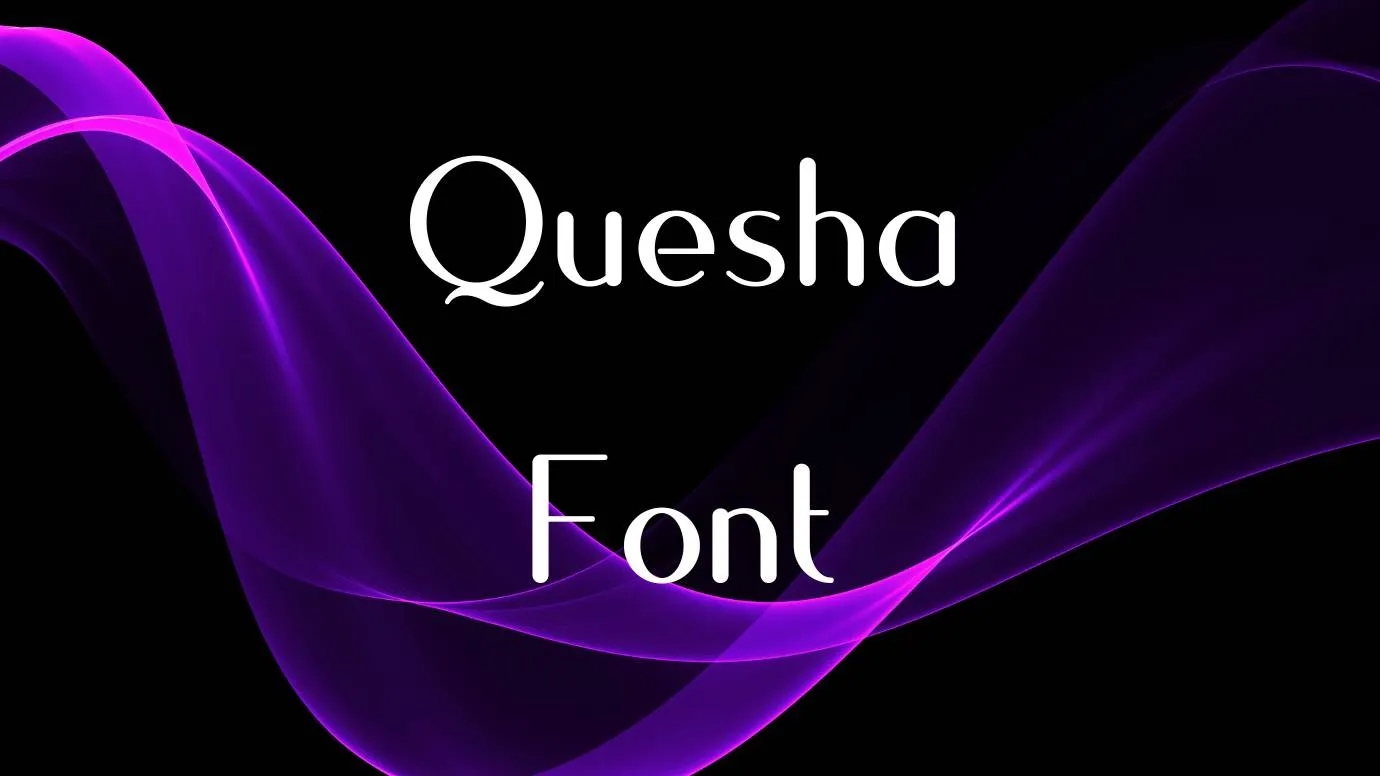
Quesha Font Family is a modern display typeface that comes with a modern classic and cohesive look. NimaType is the famous foundry, that took charge of the creation of this texture.
Quesha Font